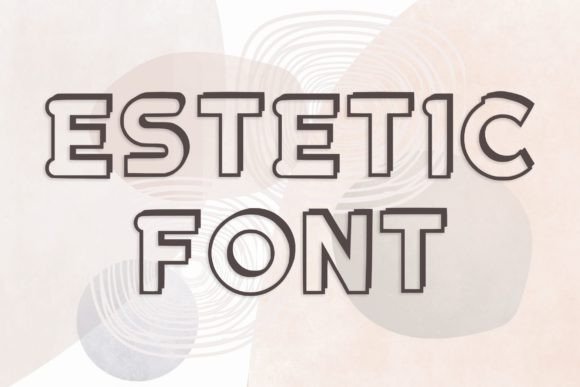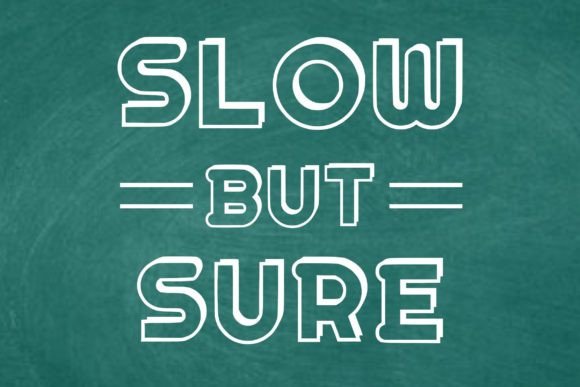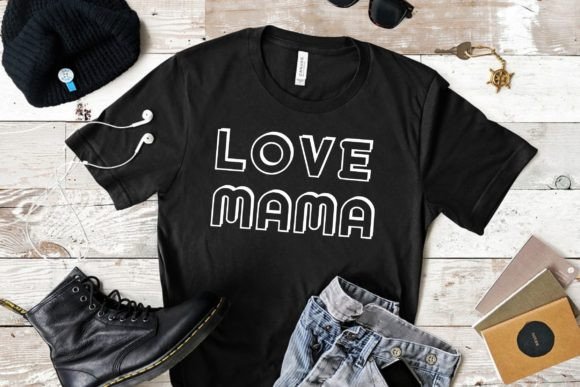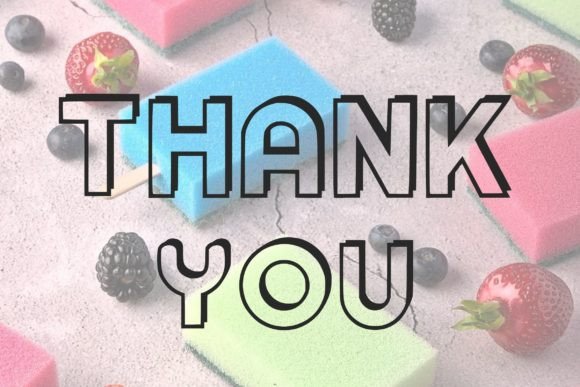
Unleashing the Cool Factor: The Power of Circle Font
Remember that moment when you stumbled upon the perfect font that made your design pop? For many of us, it’s a moment of pure excitement and creative satisfaction. And if you’re a designer looking to elevate your craft, you’re in luck! Introducing the Circle Font, a bold outlines font that exudes impeccable coolness. Whether you’re working on a digital design, presentation, or crafting a unique greeting card, Circle Font is the perfect choice to convey your message with style.
What sets Circle Font apart is its versatility and impact. Its bold outlines make it stand out on any medium, from digital screens to paper crafts. As a designer, you’ll appreciate the value of having a font that’s both modern and timeless, making it an excellent addition to your design toolkit.
Circle Font Key Features
- Unique Character Set: Circle Font features a unique set of characters, including a wide range of punctuation marks, symbols, and glyphs, making it an ideal choice for designers and typographers who require a distinctive look.
- OpenType Features: Circle Font supports advanced OpenType features, including ligatures, swashes, and contextual alternates, allowing for a high degree of customization and flexibility.
Circle Font Review
As a designer, I’ve had the chance to play around with the Circle Font, and here’s my honest review.
- Clean and Simple Design: The font’s circular shapes give it a clean and simple look that’s easy on the eyes.
- High Customization: The font can be customized to fit any design style, from modern to vintage.
- Perfect for Logos: The circular shape makes it a great choice for logos, especially for companies that want a unique and memorable brand identity.
- Not Ideal for Large Blocks of Text: The circular shape can make it difficult to read large blocks of text, as it can be overwhelming.
- Limited Character Set: The font may not have a full character set, which can limit its use in certain contexts.
- Not Suitable for Headlines: While it’s great for logos, the font may not be the best choice for headlines, as it can be too subtle.
The Circle Font is a great addition to any designer’s toolkit, but it’s not a one-size-fits-all solution. It’s perfect for logos and small text blocks, but may not be the best choice for large blocks of text or headlines. With its high customization options and clean design, it’s definitely worth considering for your next design project.
The Circle Font is ideal for creating eye-catching headings, titles, and logos. It’s also great for adding a playful touch to social media graphics, flyers, and brochures. Experiment with different font sizes and colors to create a unique and memorable design.